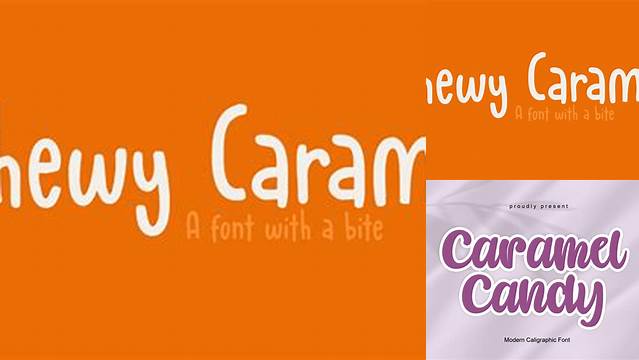
Chewy Caramel Font: Free Download Guide
Hey guys! Ever stumbled upon a font that just makes you wanna lick the screen? That's how I felt when I first saw the Chewy Caramel font. It's playful, it's sweet (pun intended!), and it's got that yummy, gooey vibe that just makes designs pop. If you're looking to add a dash of fun to your projects, this font might just be your golden ticket. So, let's dive into everything you need to know about getting your hands on the Chewy Caramel regular font – for free!
What Makes Chewy Caramel Font So Special?
Chewy Caramel Font isn't just another typeface; it’s a vibe. It’s the kind of font that whispers of candy stores, birthday parties, and all things delightful. Its rounded edges and bouncy baseline give it a unique personality, making it perfect for projects that need a touch of whimsy. From children’s books to eye-catching logos, this font can elevate your design game instantly. The charm of Chewy Caramel lies in its ability to evoke a sense of nostalgia and happiness. The font has a playful yet readable quality. Designers often choose it when they want to create a friendly and approachable feel. Think about using this font for greeting cards, posters, or even website headers; it's incredibly versatile!
Using Chewy Caramel Font in Graphic Design
Now that you’ve successfully downloaded and installed the Chewy Caramel font, let’s talk about how to use it effectively in your graphic designs. This font is particularly well-suited for projects that need a playful and friendly touch. Think about using it for children’s books, birthday invitations, or even branding for a candy store. The rounded edges and bouncy baseline make it visually appealing and easy to read, especially in larger sizes. When using Chewy Caramel, consider the overall tone of your design. It pairs well with bright colors and simple illustrations. Avoid using it in overly serious or corporate projects, as it might clash with the intended message. Experiment with different font sizes and weights to see what works best for your design. You can also try adding shadows or outlines to make the font stand out even more. Remember, the key is to have fun and let the font's unique personality shine through! By understanding its strengths and limitations, you can effectively incorporate Chewy Caramel into your designs and create visually stunning and engaging projects.
Chewy Caramel Font for Logos and Branding
When it comes to logos and branding, choosing the right font can make or break your visual identity. The Chewy Caramel font can be a fantastic choice if you're aiming for a fun, approachable, and memorable brand image. This font’s playful nature is perfect for businesses targeting children or those wanting to evoke a sense of nostalgia and joy. Imagine a logo for a candy shop, a toy store, or even a daycare center using Chewy Caramel – it instantly conveys a sense of warmth and friendliness. However, it’s important to consider your target audience and brand values before committing to this font. If your brand is more serious or corporate, Chewy Caramel might not be the best fit. But if you’re looking to stand out and make a lasting impression with a playful twist, this font can be a game-changer. Experiment with different color combinations and graphic elements to create a logo that truly represents your brand. Remember, consistency is key in branding, so ensure you use Chewy Caramel font consistently across all your marketing materials to build brand recognition.
Pairing Chewy Caramel with Other Fonts
One of the secrets to great typography is knowing how to pair fonts effectively. While Chewy Caramel is a fantastic font on its own, combining it with other fonts can elevate your design to the next level. The key is to find fonts that complement Chewy Caramel's playful nature without overpowering it. A good approach is to pair it with a simple, clean sans-serif font for body text. Fonts like Open Sans, Lato, or Montserrat work well because they provide a neutral backdrop that allows Chewy Caramel to shine. Avoid using overly decorative or script fonts in conjunction with Chewy Caramel, as this can create a cluttered and confusing look. When pairing fonts, consider the overall hierarchy of your design. Use Chewy Caramel for headings and titles to grab attention, and then use the sans-serif font for the main body of text. This creates a clear visual distinction and makes your design more readable. Experiment with different font sizes and weights to find the perfect balance. By carefully selecting and pairing fonts, you can create visually appealing and engaging designs that effectively communicate your message.
Exploring Similar Fonts to Chewy Caramel
If you love the playful and whimsical style of Chewy Caramel font but want to explore similar options, there are plenty of fonts out there that capture a similar vibe. One popular alternative is Bubblegum Sans, which features rounded edges and a bouncy baseline, making it perfect for children’s projects. Another great option is Luckiest Guy, a bold and quirky font that adds a fun twist to any design. For a slightly more sophisticated look, consider using Fredoka One, which has a similar rounded aesthetic but with a slightly more refined feel. If you're looking for a hand-drawn style font, try Amatic SC, which is a tall and narrow font that adds a touch of whimsy. When exploring similar fonts, consider the specific needs of your project. Think about the overall tone and message you want to convey, and choose a font that aligns with those goals. Experiment with different options and see what works best for your design. By exploring similar fonts, you can expand your typographic palette and find the perfect font for every project.
Conclusion: Is Chewy Caramel Font Right for You?
So, we've reached the end of our sugary-sweet journey through the world of the Chewy Caramel font. By now, you should have a pretty good idea of whether this font is the right fit for your projects. It is perfect for designs needing a playful, friendly, and slightly nostalgic vibe. It shines in children's materials, creative branding, and eye-catching social media graphics. But it might not be the best choice for serious or corporate projects. Always double-check the licensing, download from reputable sources, and follow best practices for readability and accessibility. If you do all of that, you'll be well on your way to creating some truly delicious designs with the Chewy Caramel font! Now go forth and create, my friends!